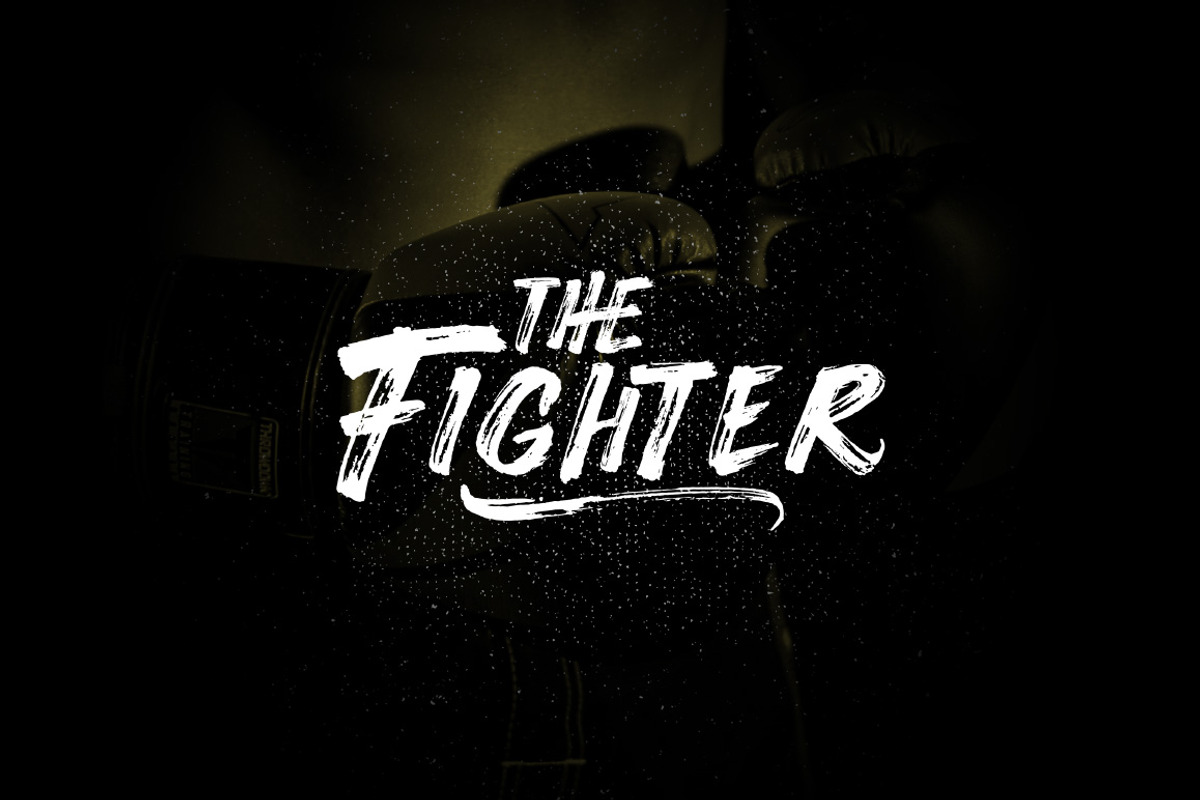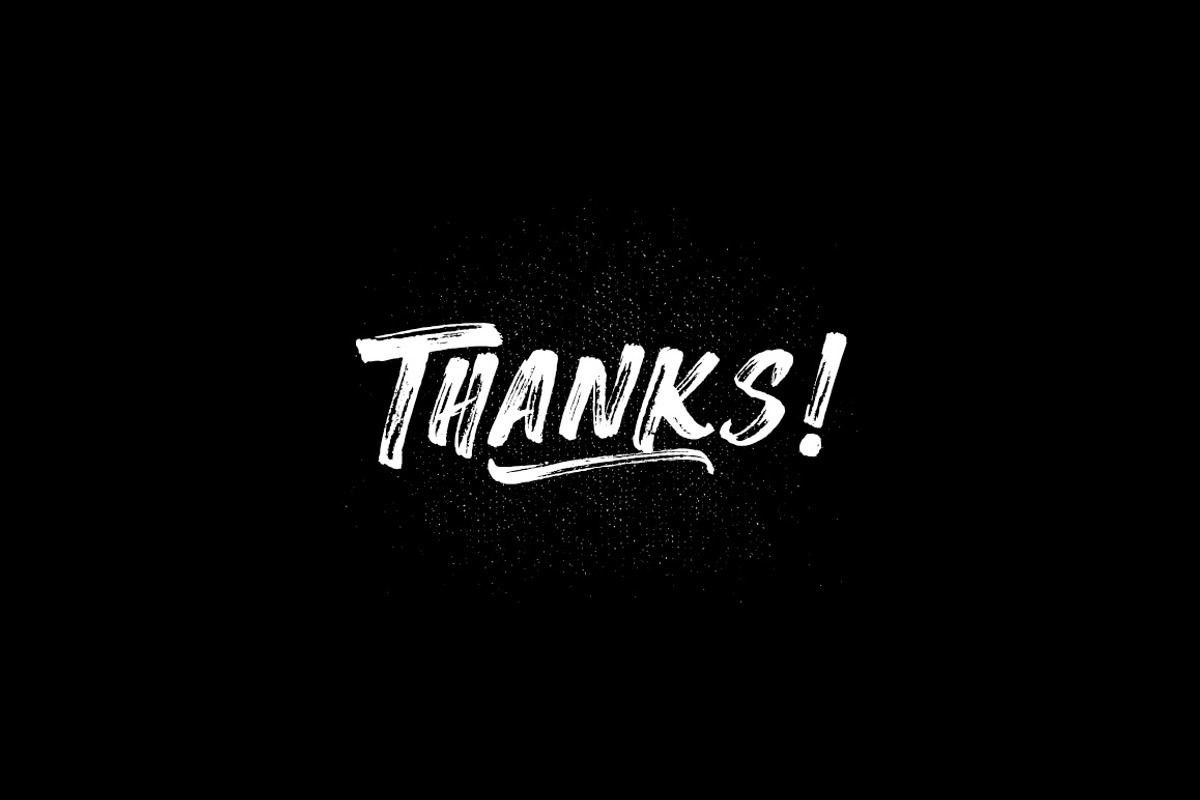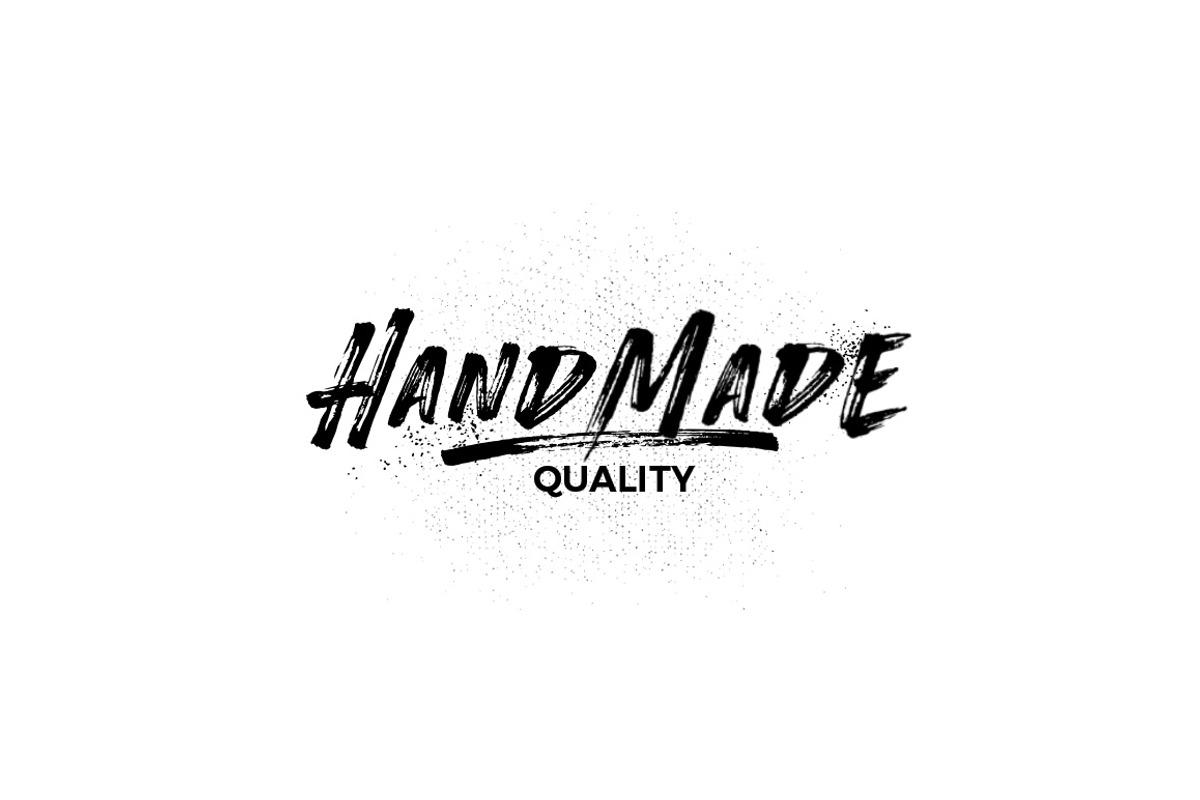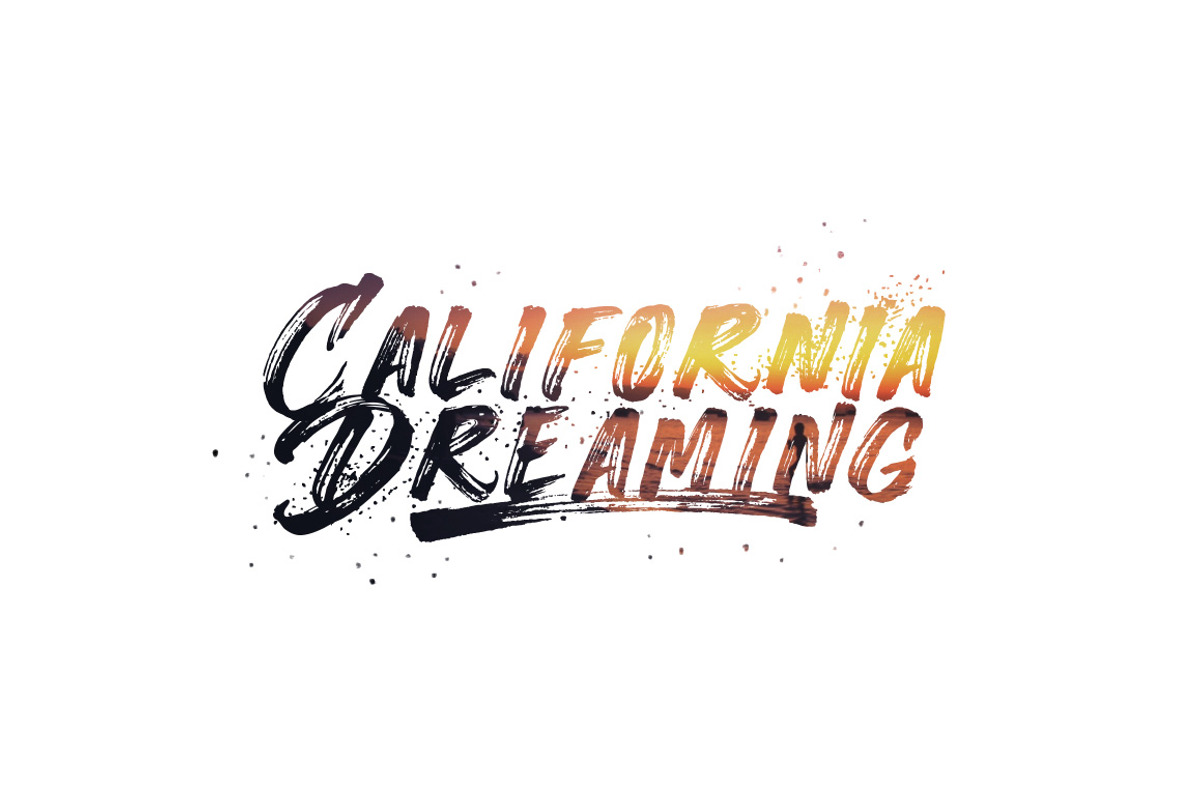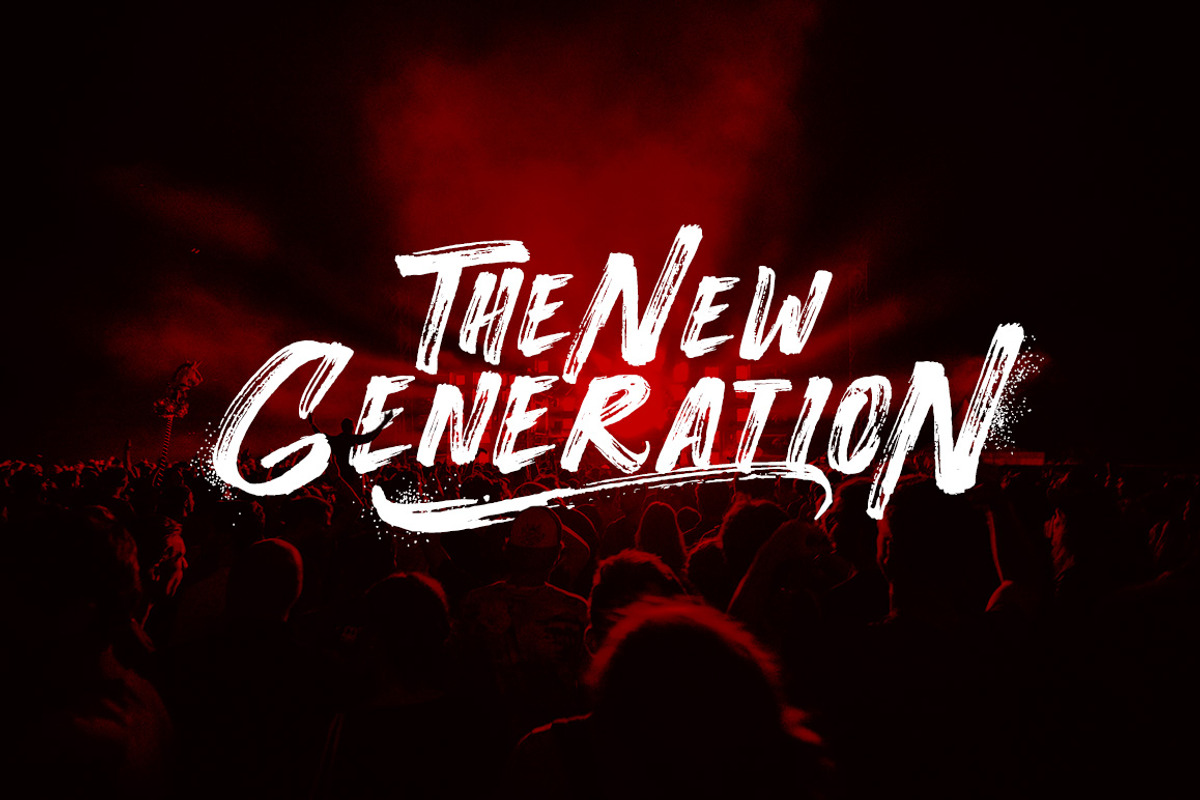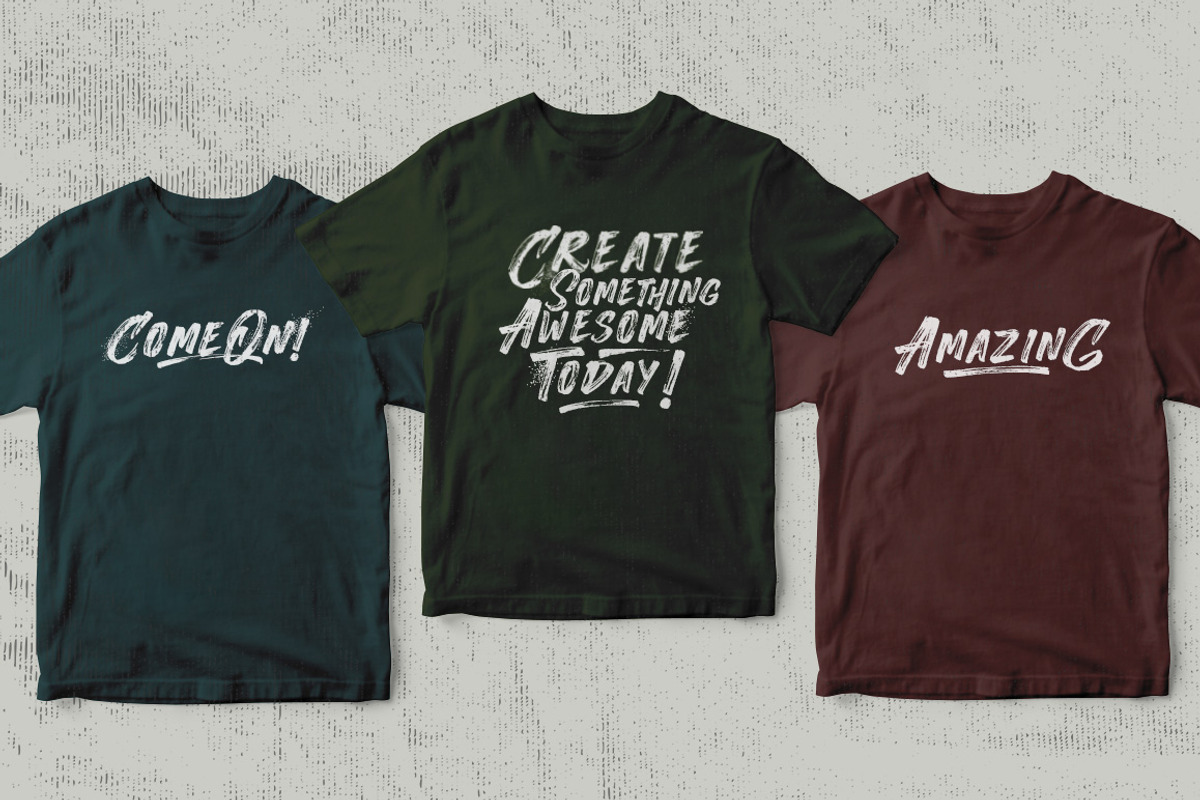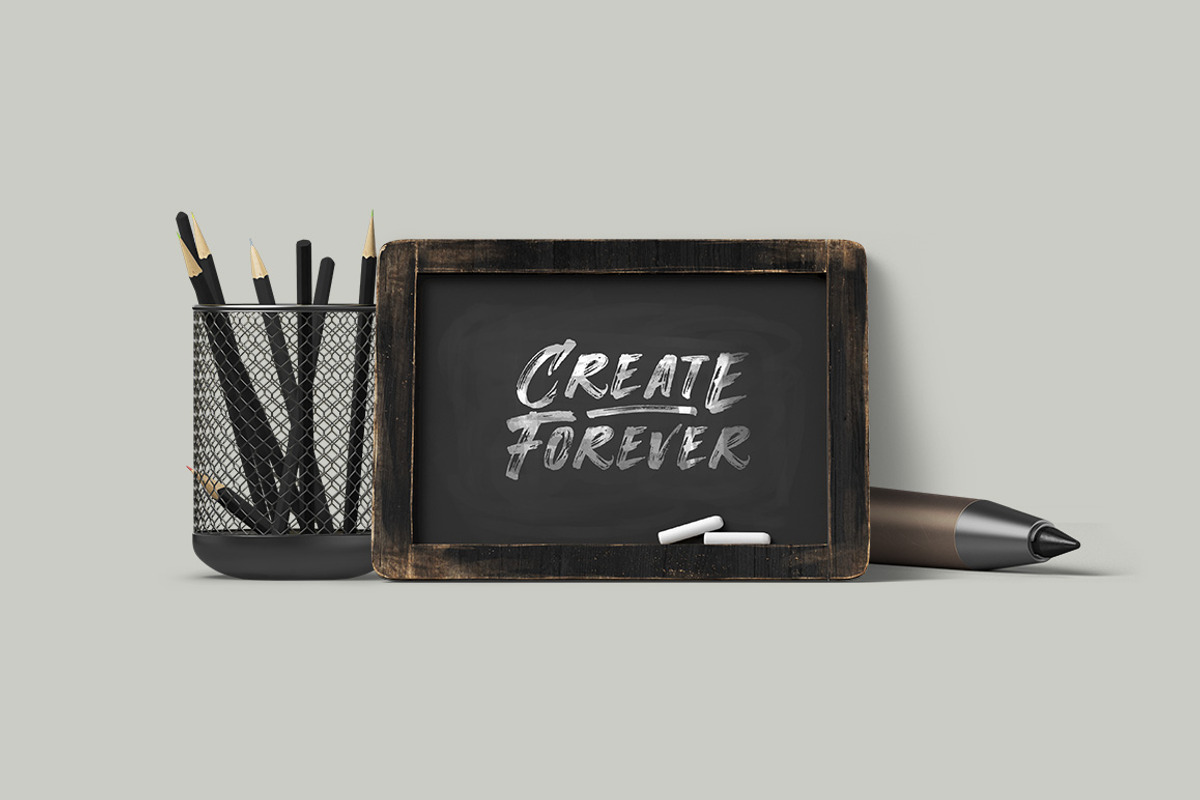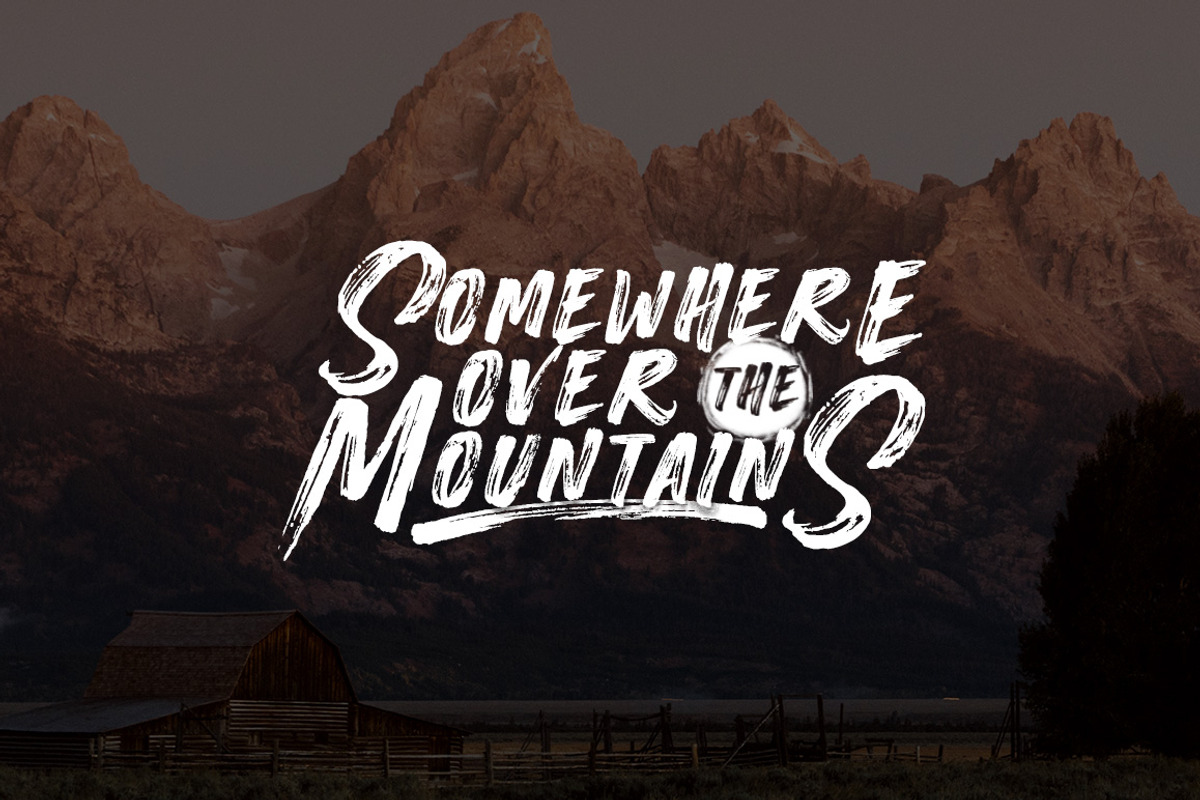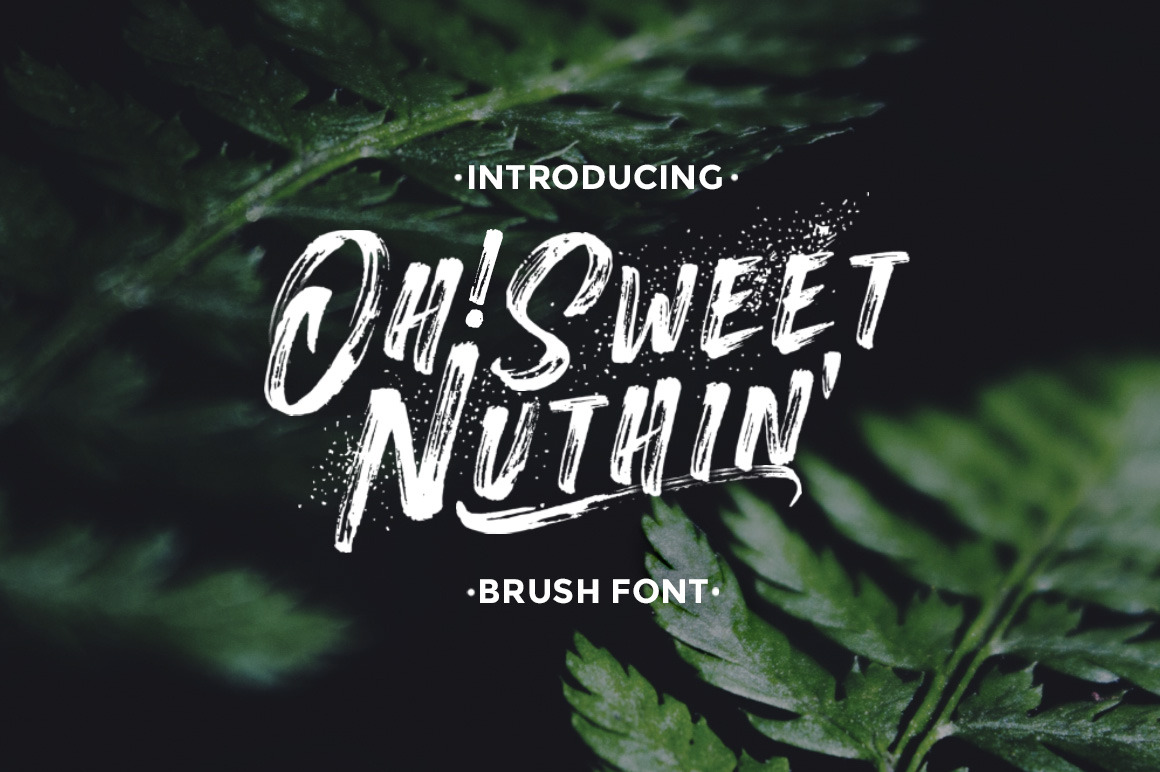
Oh!SweetNuthin' - Handcrafted Font
Introducing my new font Oh! Sweet Nuthin' a hand made font with strong and bold brush strokes. You can use this font with 3 words on its name (a little long, i know) for your branding project, t-shirts, stickers anything you need!
1.Oh!SweetNuthin' font: This is the main font with Uppercase and Lowercase characters with all the numerals, punctuation, alternates and ligatures
2.Oh!SweetNuthin' Swashes font: This Font contains swashes and splatters on every letter. Lowercase for the swashes and Uppercase for the splatters.